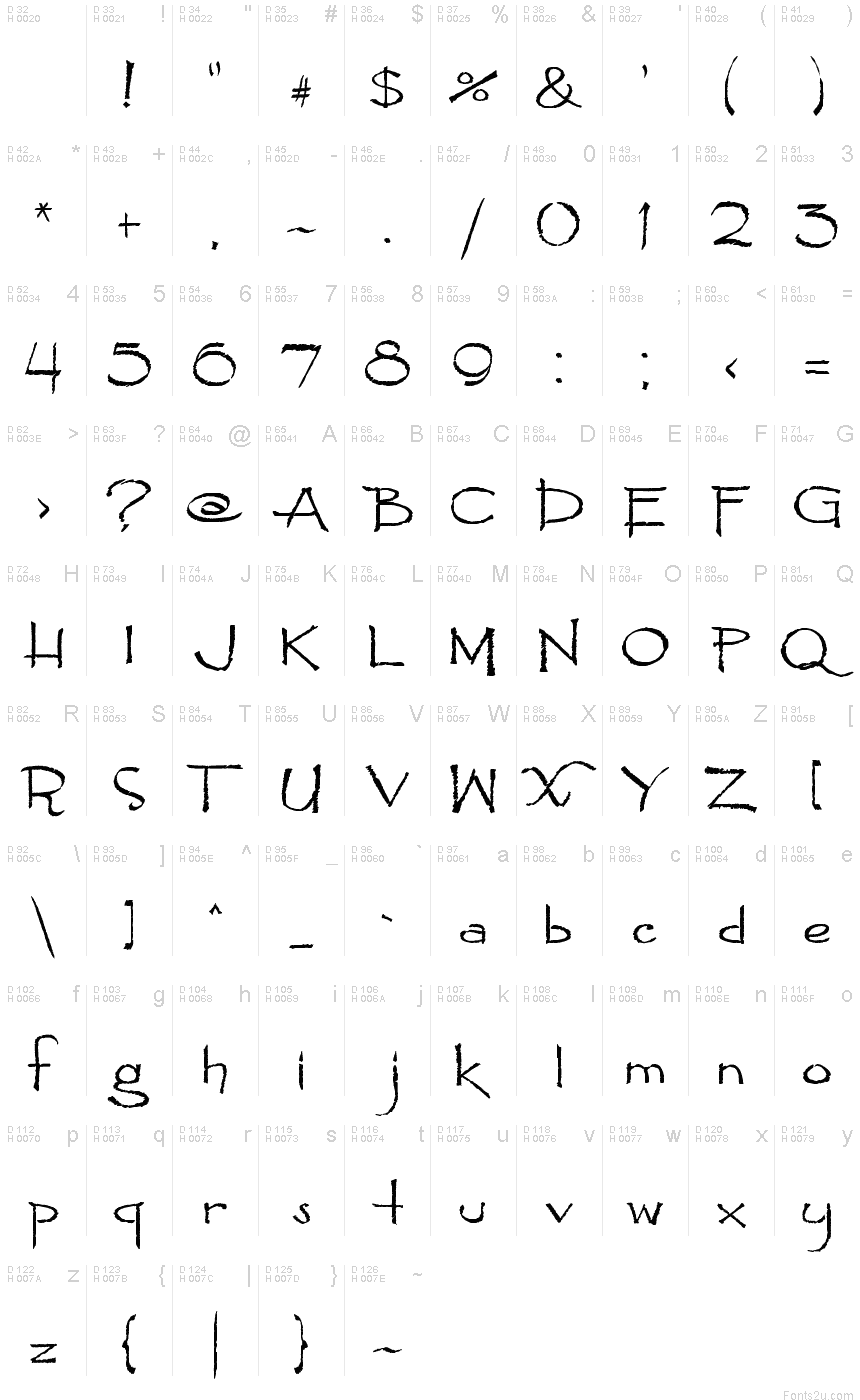
Pyrite Scrypt
An alternative to papyrus that I wanted to try, I did quite a few adjustments before publishing the font so I hope you find it useful in your projects.